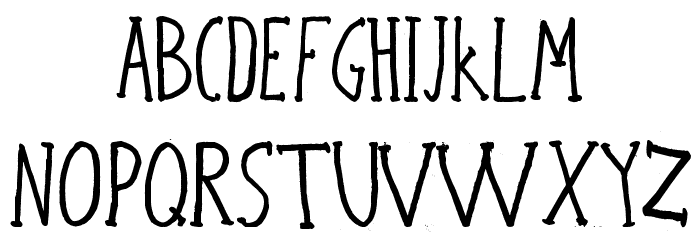
Bicho plumon Font
This playful and whimsical font features a hand-drawn style with uneven strokes and a casual appearance. The uppercase letters are tall and narrow, while the lowercase letters are more rounded and varied in height. The numbers are quirky, maintaining the same playful aesthetic. Special characters like the hashtag and exclamation mark are creatively designed, adding to the font's unique charm. The overall look is reminiscent of doodles or sketches, making it ideal for projects that require a fun and informal touch.
A playful, hand-drawn font with a whimsical and casual style.
- Proposed Projects: Ideal for children's books, comic strips, playful branding, and creative posters.
- Overall Style: Decorative